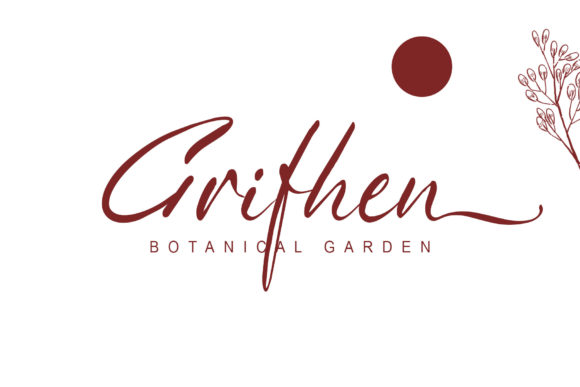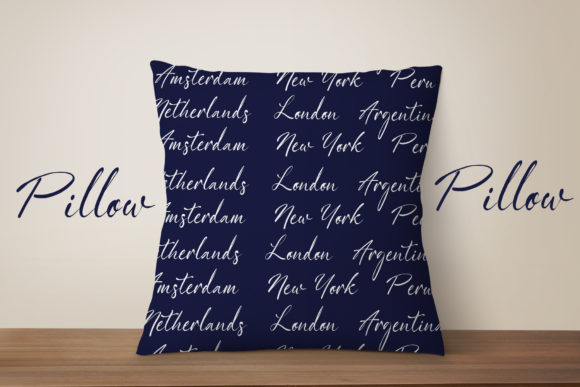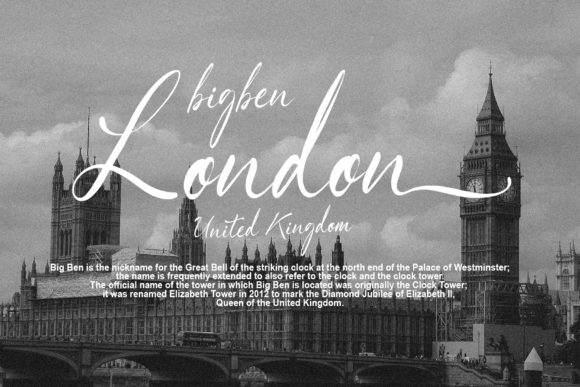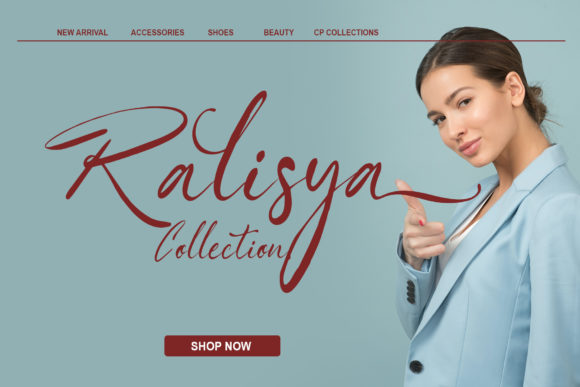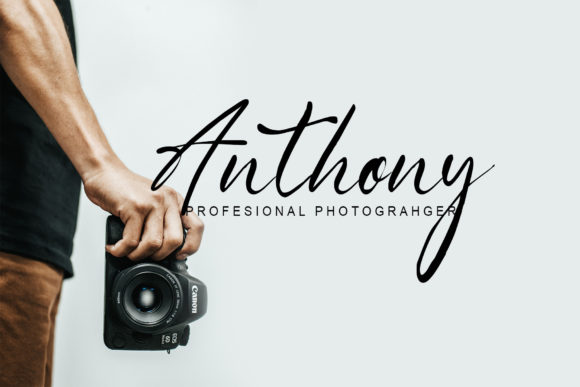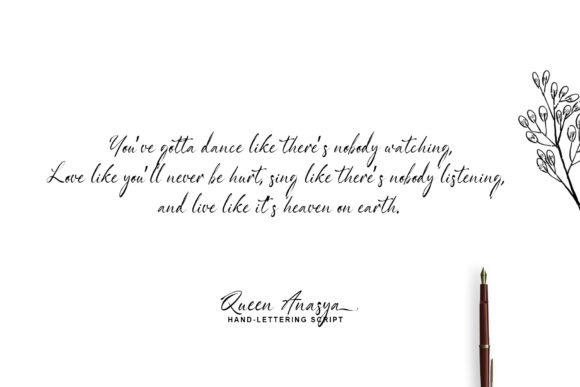
Introduction to Queen Anasya Font
Queen Anasya is a modern handwritten font.
It’s perfect for branding, wedding invitations, birthday cards, or any other project that requires a sweet handwritten accent and a friendly vibe .
Key Features of Queen Anasya Font